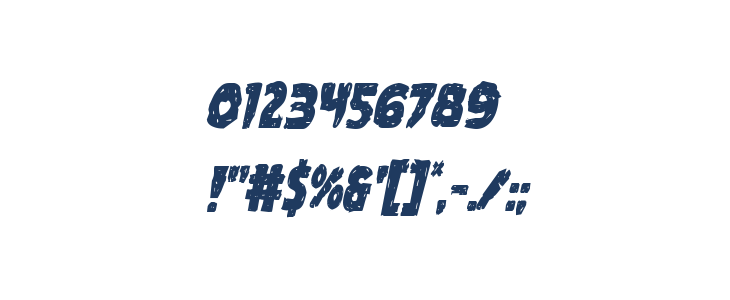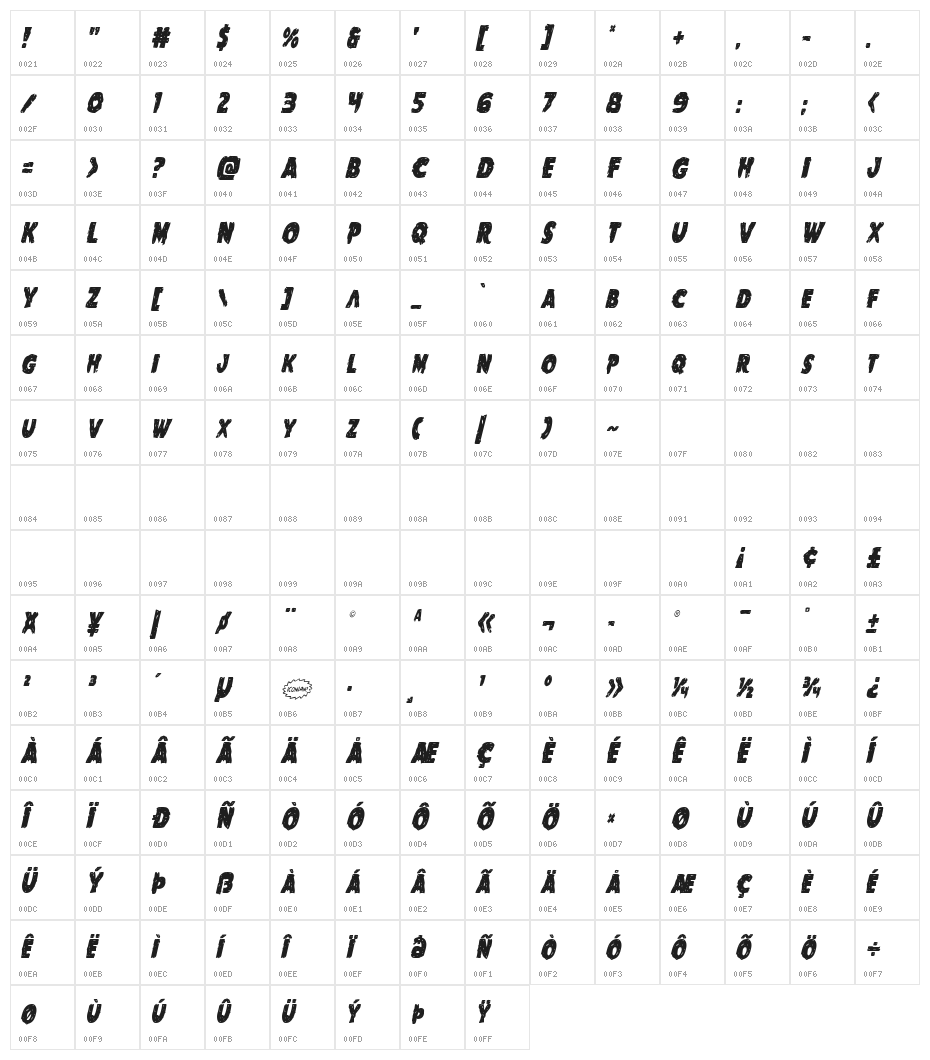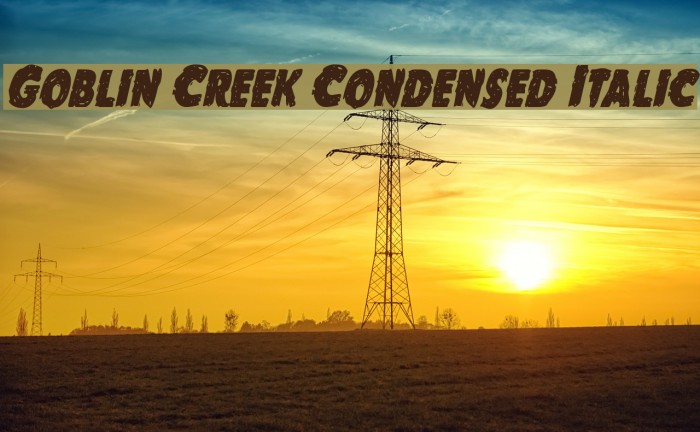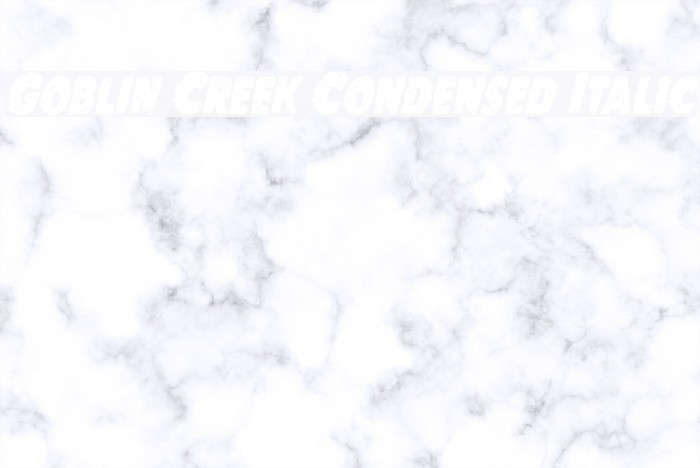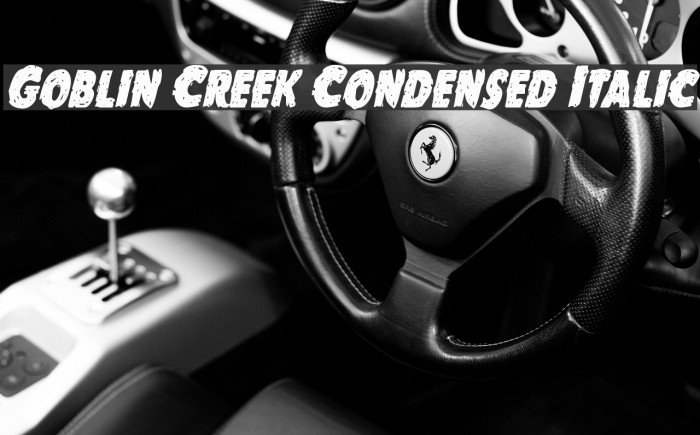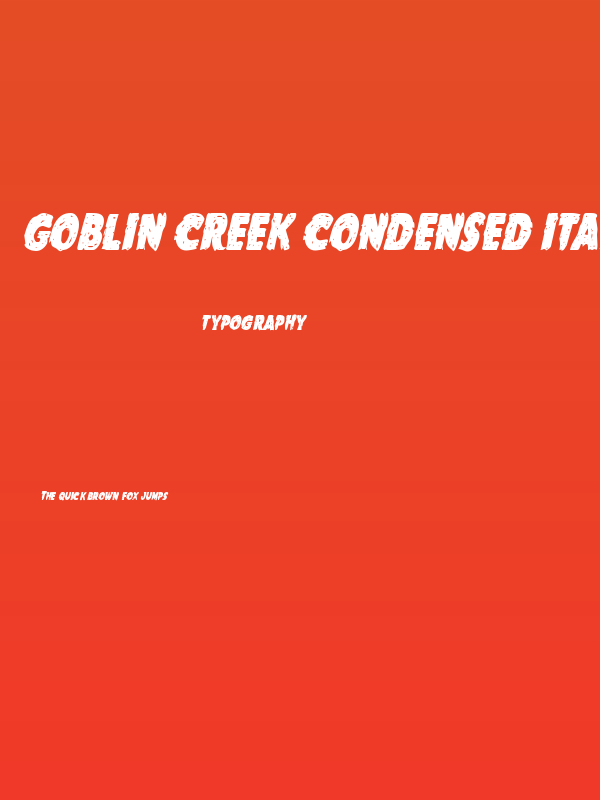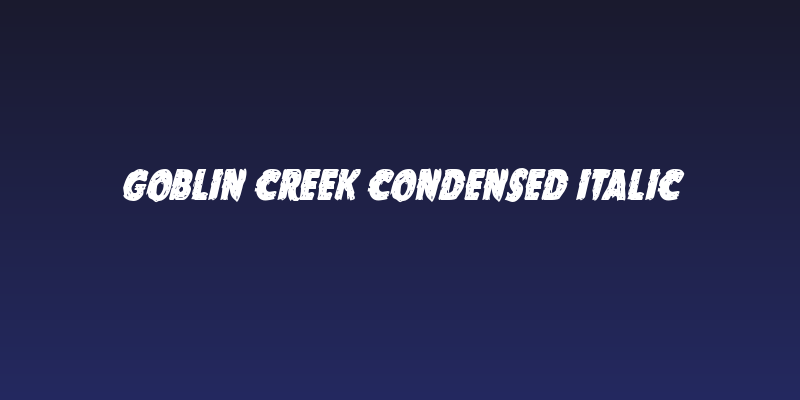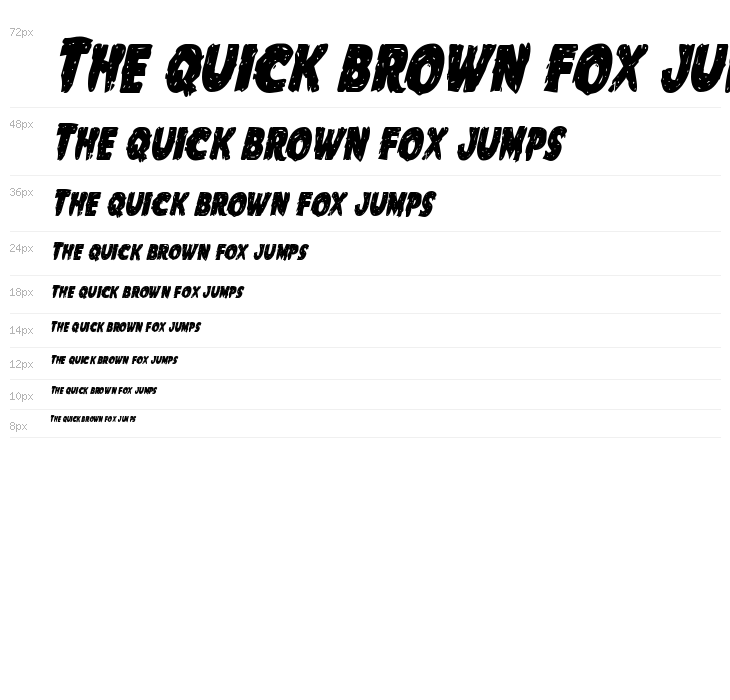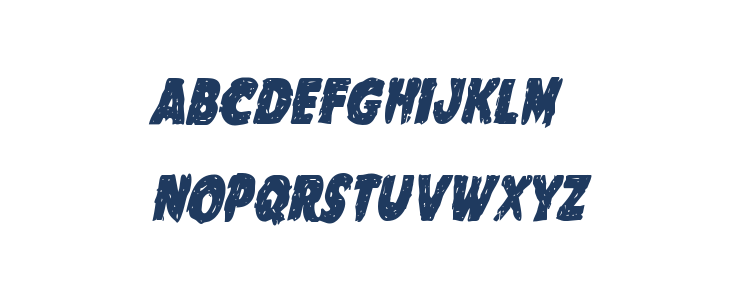
Goblin Creek Condensed Italic Font
Goblin Creek Condensed Italic Description
This font features a bold, condensed style with a distinct italic slant, giving it a dynamic and energetic appearance. The characters are heavily stylized with jagged edges and irregular shapes, creating a sense of movement and intensity. The uppercase and lowercase letters maintain a consistent design, while the numerals and special characters complement the overall aesthetic. The font's unique texture and bold presence make it ideal for attention-grabbing designs. Its condensed form allows for efficient use of space, making it suitable for headlines and impactful text displays.
| Proposed Projects | Ideal for horror-themed posters, Halloween invitations, edgy branding, or video game titles. |